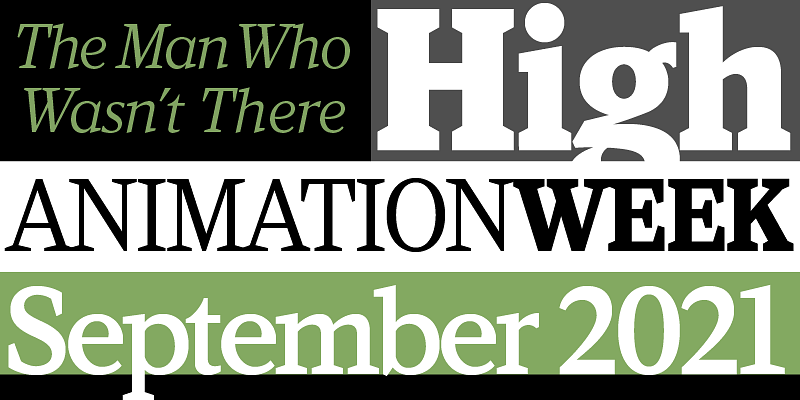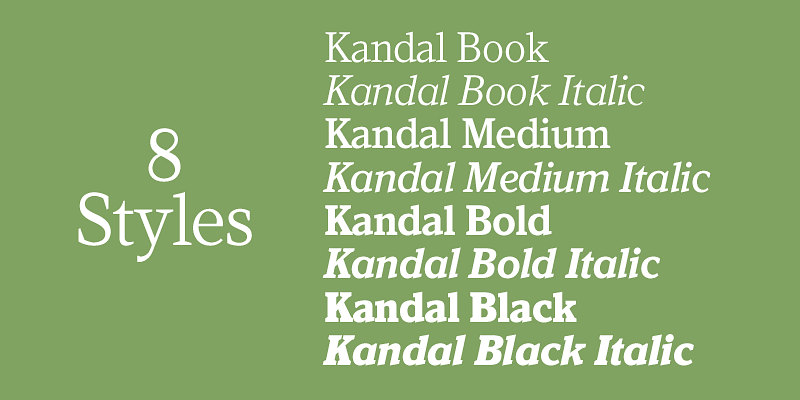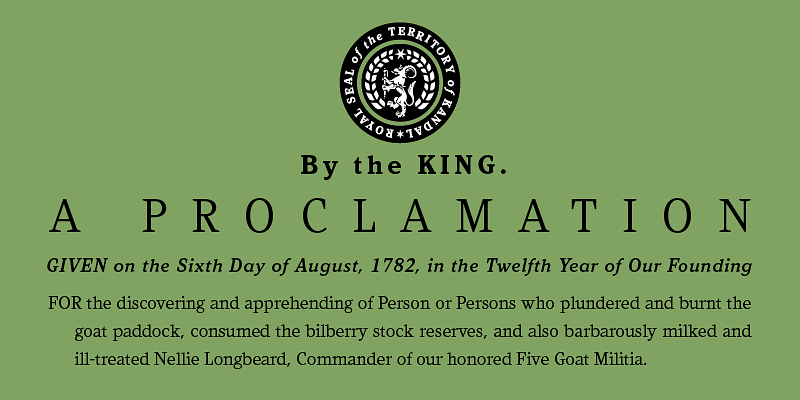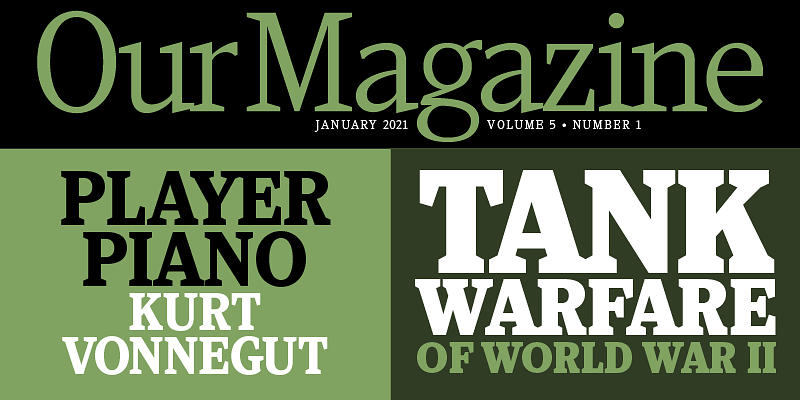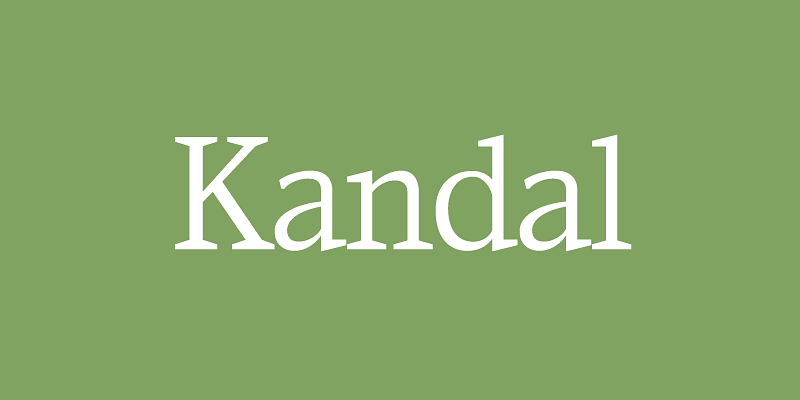
Kandal (1994) is a wedge serif design with some old style characteristics. It follows the weight scheme typically used for slab-serif typefaces, where the contrast between the thick and thin strokes remains relatively constant as they get thicker. Its proportions are rather narrow compared to other serif typefaces, especially the caps. The italic follows a modern cursive style of construction. The name comes from the name of a small town in Norway where some of my ancestors were from. It rhymes with “bundle.”